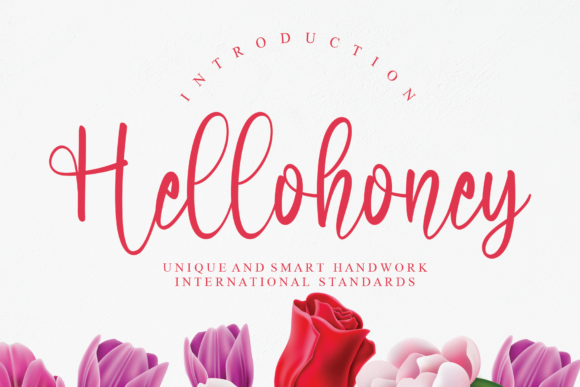
Hellohoney Font: A Journey Through Time and Technology
In a world saturated with digital noise, standing out requires a unique voice. Hellohoney Font, a script typeface born from the creative genius of Misterletter.co, is your ticket to making a lasting impression. With its thin, flowing lines and adventurous spirit, Hellohoney Font is the ideal font for expressing your passion for technology and innovation. It's the perfect choice for crafting logos that exude a sense of authenticity and exploration.
Feel the Pulse of Technology with Hellohoney Font
Hellohoney Font is more than just a font; it's a gateway to a world where technology and creativity converge. Its carefully crafted characters dance across the screen, evoking a sense of movement and dynamism that perfectly captures the essence of modern technology. Whether you're designing a website, creating marketing materials, or simply expressing yourself through digital art, Hellohoney Font is the perfect companion for your creative journey.
Craft Logos That Speak Volumes
Logos are the cornerstones of brand identity, and Hellohoney Font is the key to creating logos that speak volumes. Its elegant curves and flowing lines add a touch of sophistication and professionalism, while its adventurous spirit hints at the innovative nature of your brand. With Hellohoney Font, your logo will not just be a visual representation; it will be a statement of intent, a declaration of your commitment to pushing boundaries and embracing the future.
Embrace the Future with Hellohoney Font
Technology is constantly evolving, and Hellohoney Font is the perfect font to keep pace with this rapid change. Its modern aesthetic and dynamic feel make it the ideal choice for forward-thinking businesses and individuals who want to stay ahead of the curve. Whether you're designing for a cutting-edge tech startup or simply want to add a touch of innovation to your personal projects, Hellohoney Font is the perfect choice.